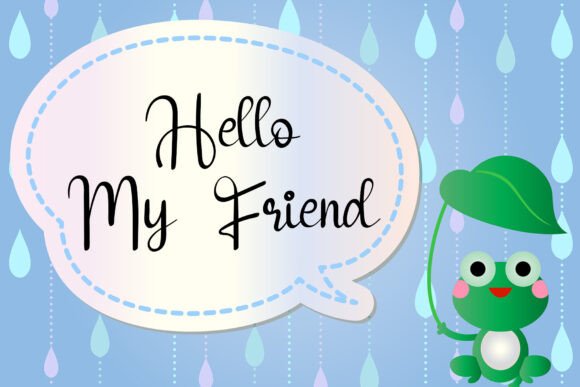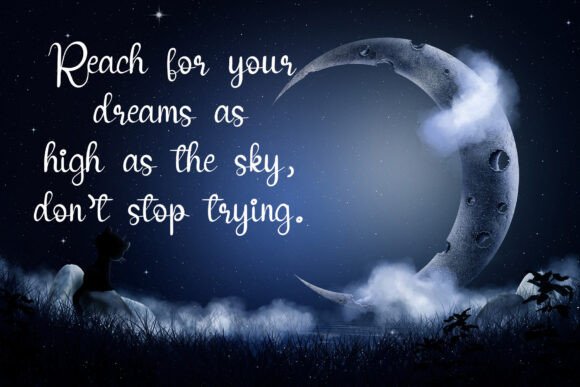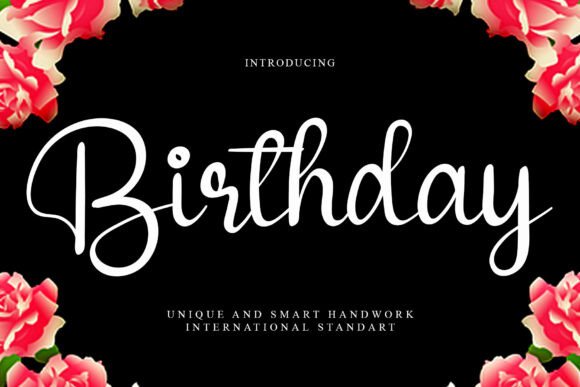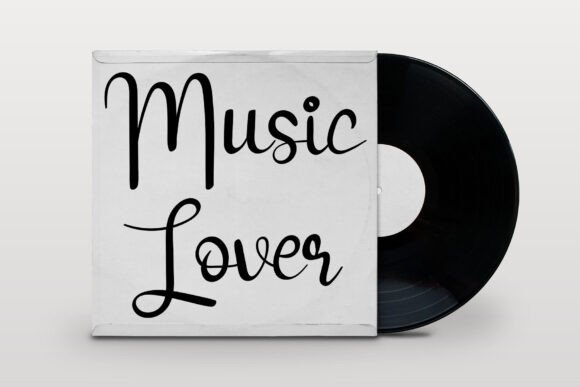
About the Birthday Font
We are excited to introduce Birthday Font, a must-have typeface for any serious designer. Birthday is a sweet and friendly handwritten font. Its natural and unique style makes it incredibly fitting to a large pool of designs. The only limit is your imagination!
Birthday Font Usage Examples